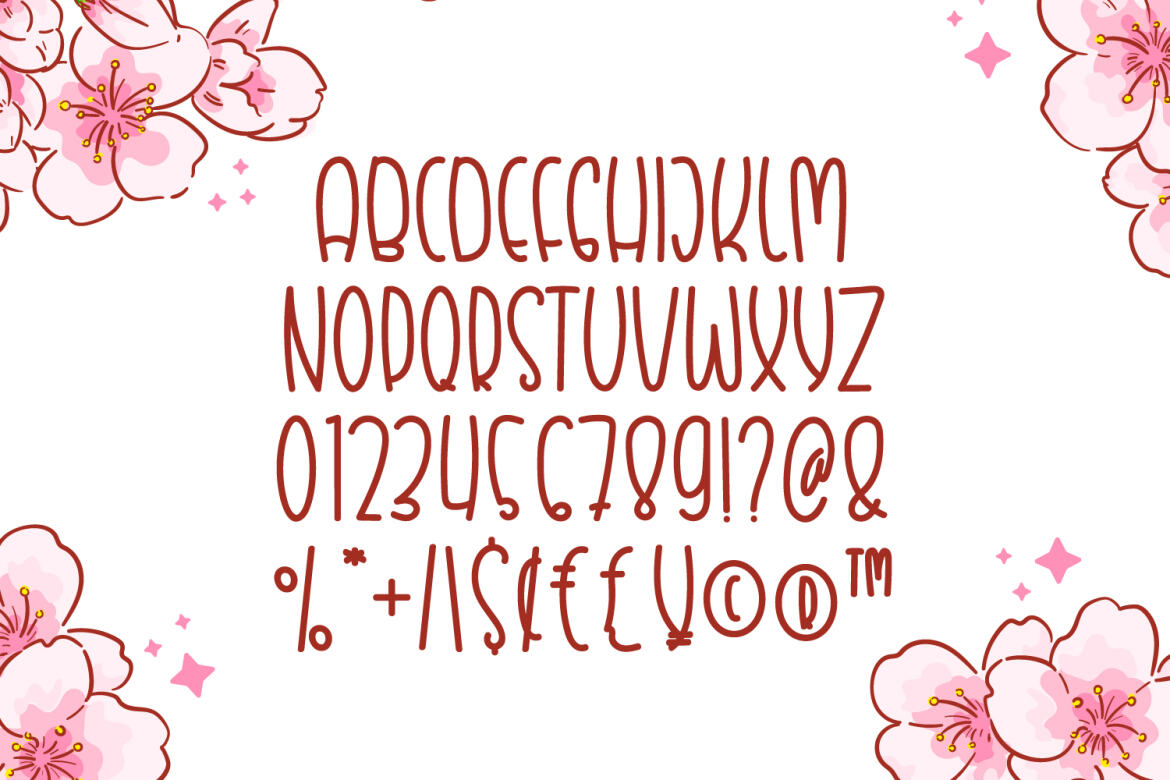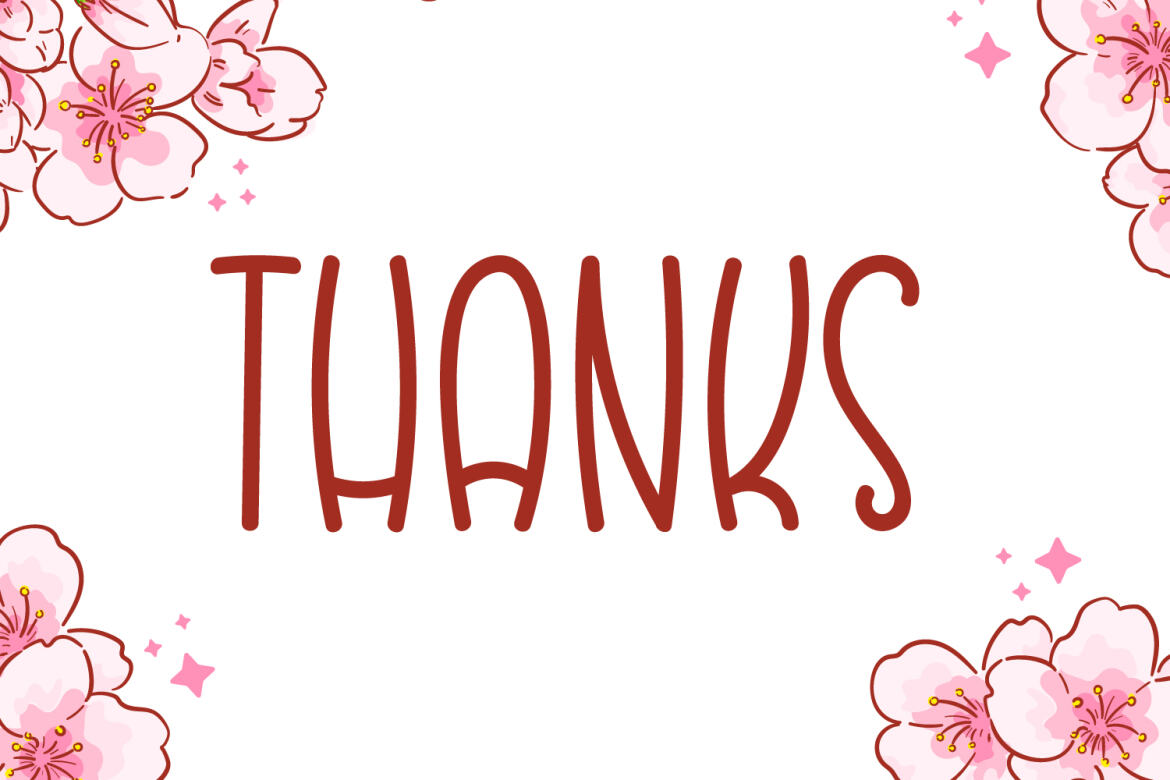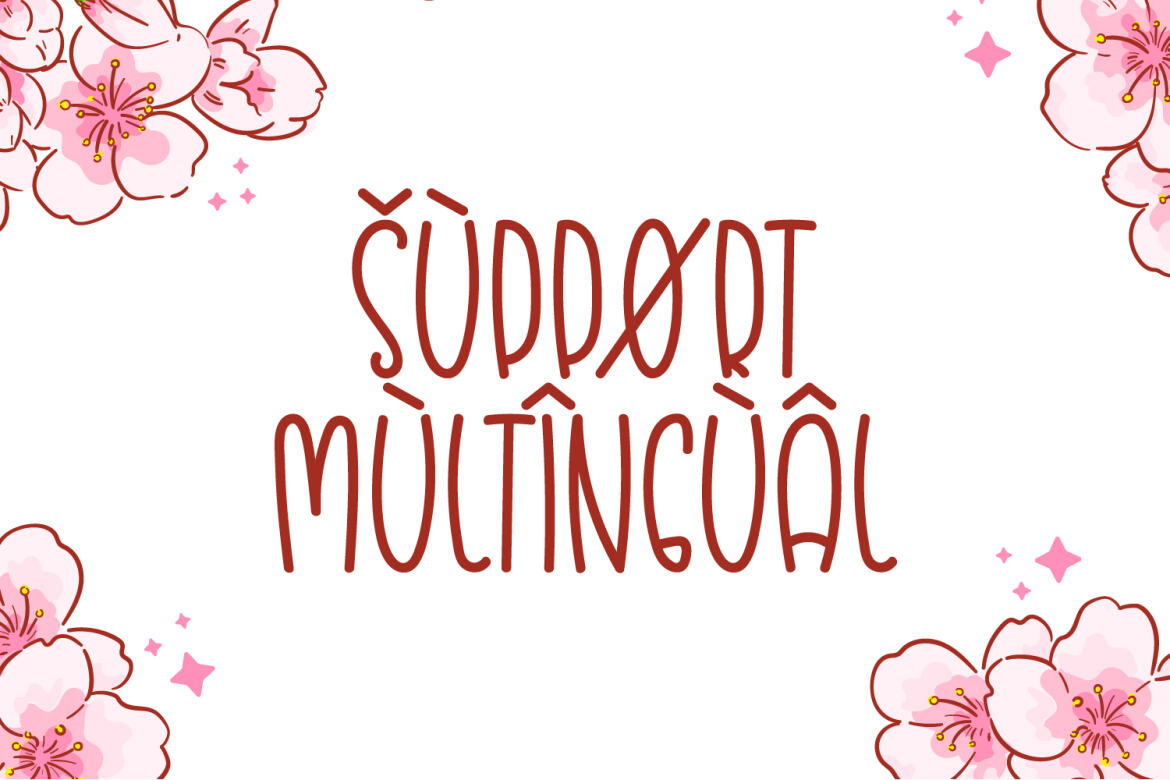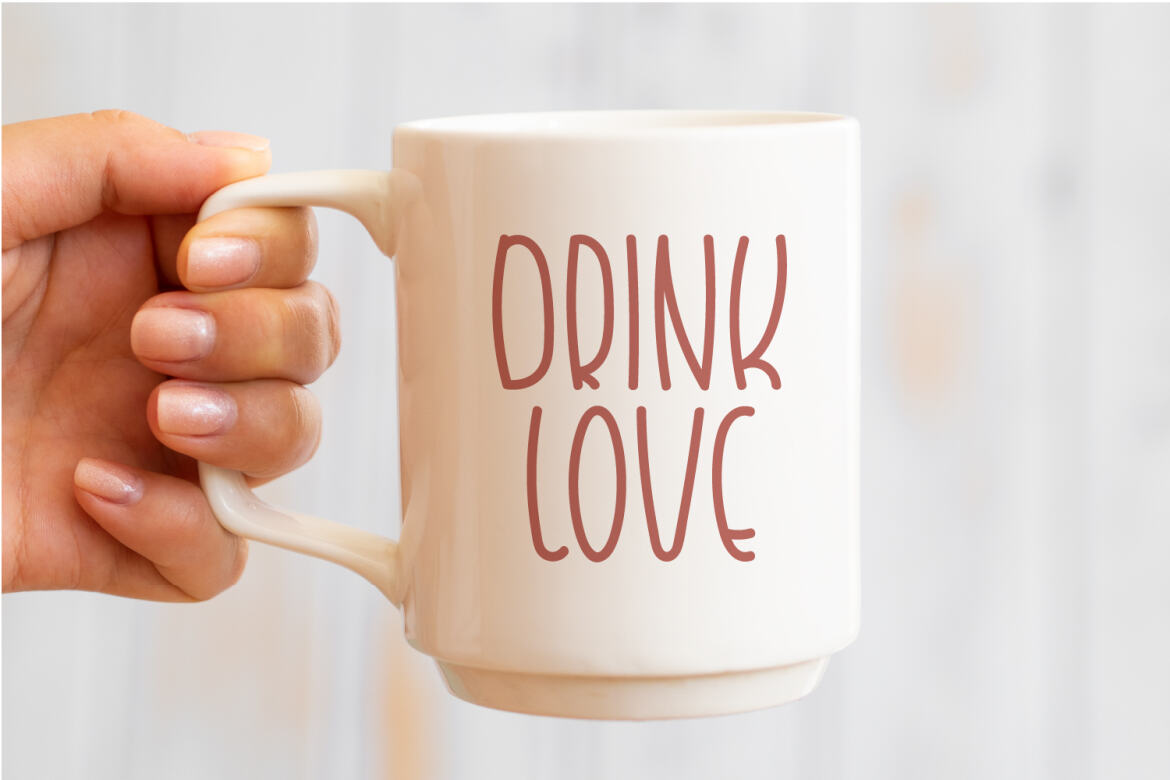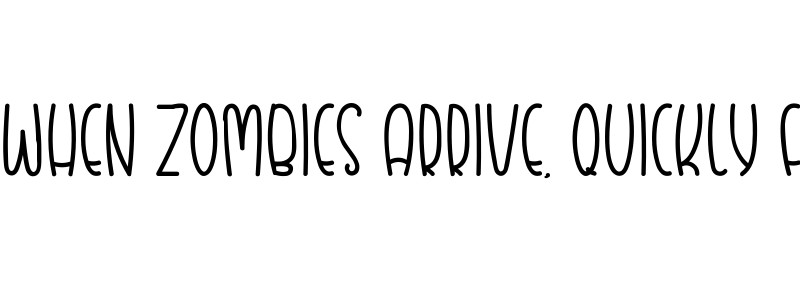
Blossom - FREE Cute Display Font
Blossom - Cute Display Font
Blossom is a quirky and cute display font that fits perfectly into anything. Its casual charm makes it look very down to earth, easy to read and, in the end, very versatile.Add this beautiful display font to your every creative idea.